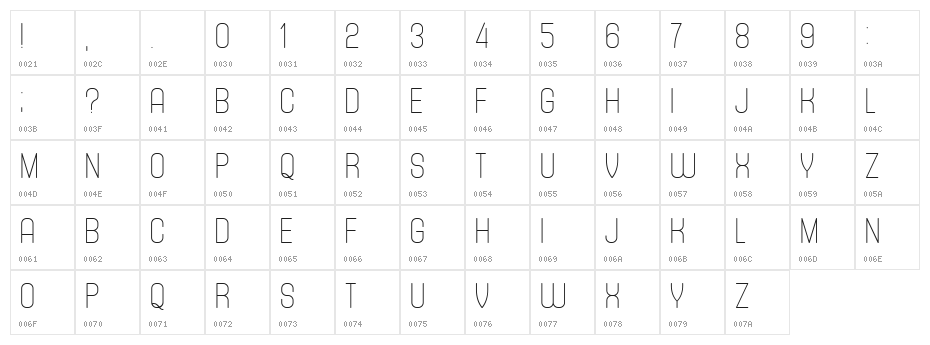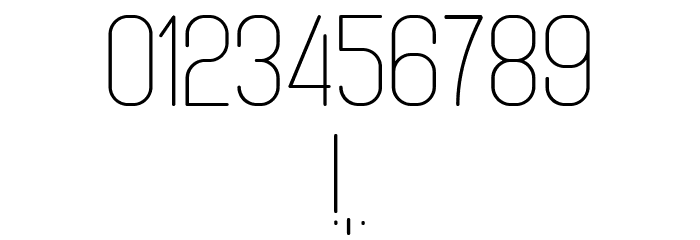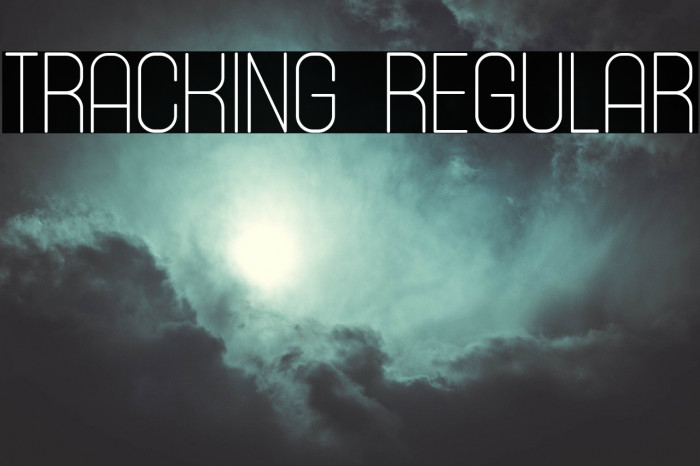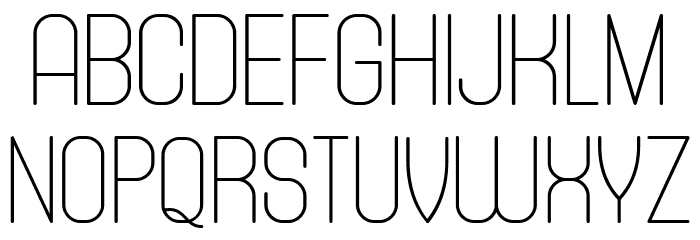
Tracking Regular Font
Tracking Regular Description
This font features a sleek, modern design with clean, geometric lines and a minimalist aesthetic. The characters are tall and narrow, giving a sense of elegance and sophistication. The uppercase and lowercase letters maintain a consistent style, with smooth curves and sharp angles that create a harmonious balance. The numerals are equally refined, matching the overall aesthetic with their streamlined appearance. The font's thin strokes and open counters contribute to its airy and contemporary feel, making it suitable for a variety of design applications.
| Proposed Projects | Ideal for branding, editorial design, and modern web interfaces. |